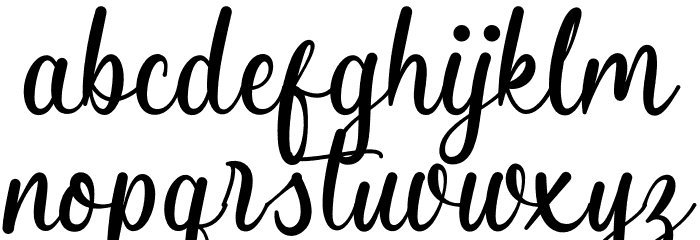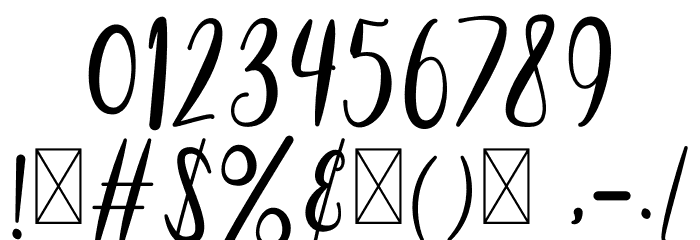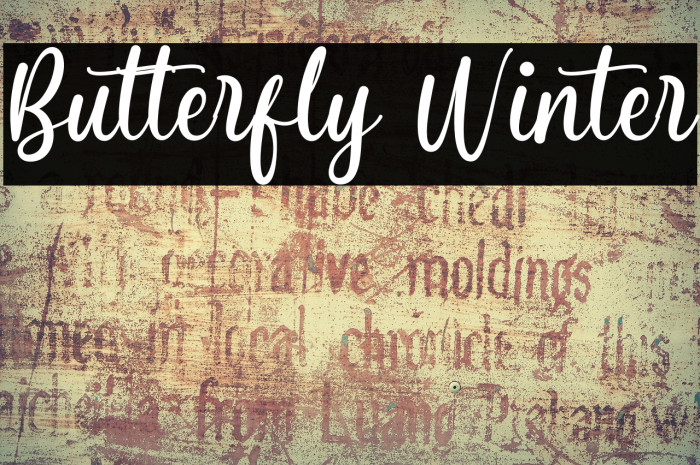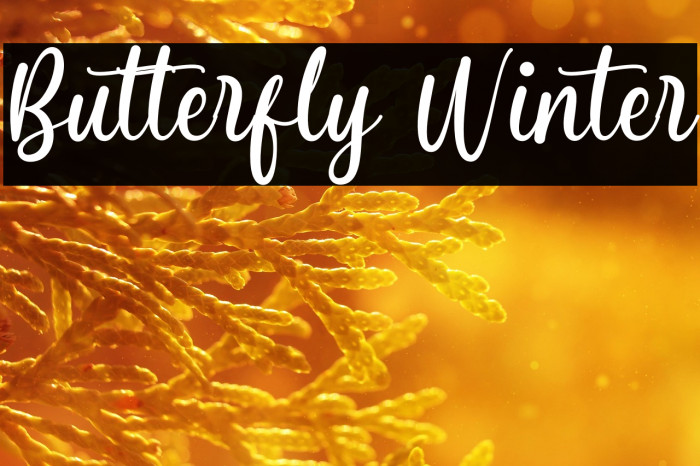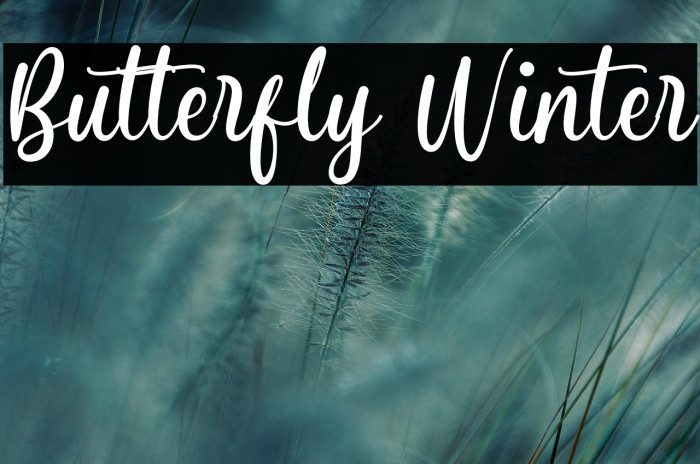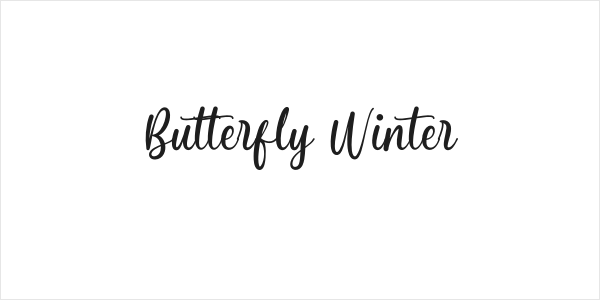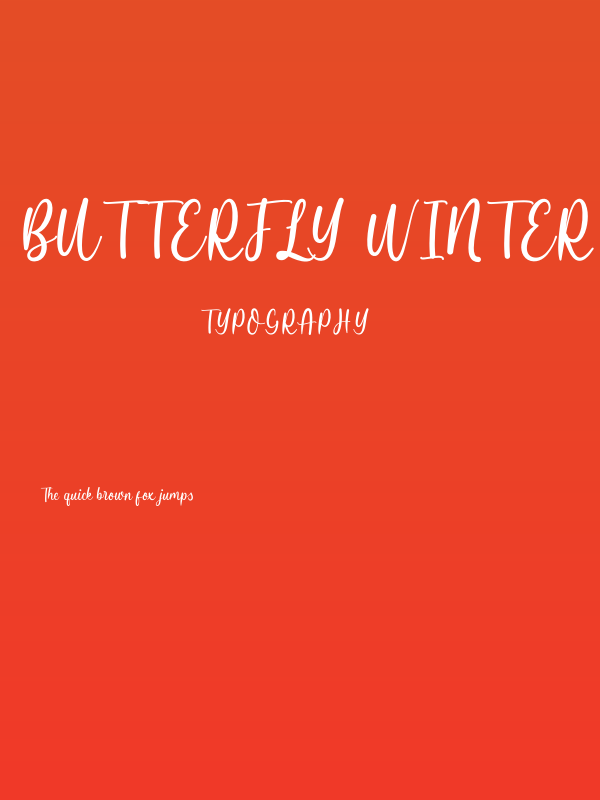
Butterfly Winter Font
This font features a flowing, cursive style with a playful and elegant touch. The uppercase letters are tall and slender, with a slight slant that adds a sense of movement and grace. The lowercase letters are more rounded and connected, creating a smooth and continuous script. The numerals are consistent with the overall style, maintaining the same fluidity and elegance. Special characters are designed to complement the letters, with a similar cursive flair. This font is ideal for projects that require a personal, handwritten feel, such as invitations, greeting cards, or branding materials.
A flowing, cursive font with elegant and playful characteristics.
- Font: Butterfly Winter
- Category: Script